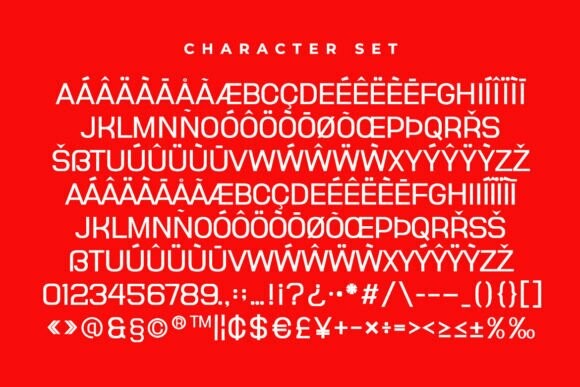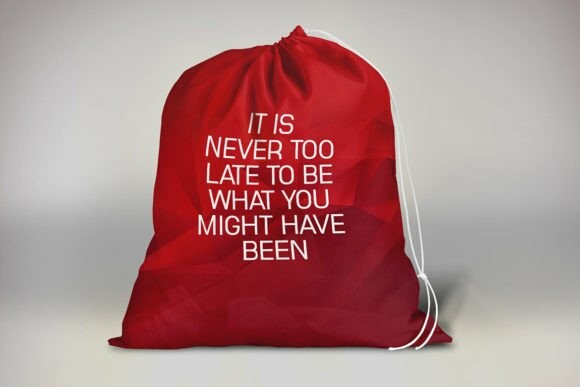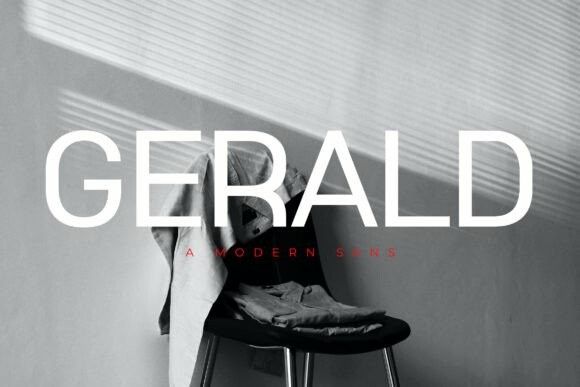
Gerald Sans Font
Gerald Sans Font is a modern and simple font with more unique ligatures, best used as a display for headings, logos, branding, magazines, product packaging and invitations.This font is easy to use and has OpenType features.